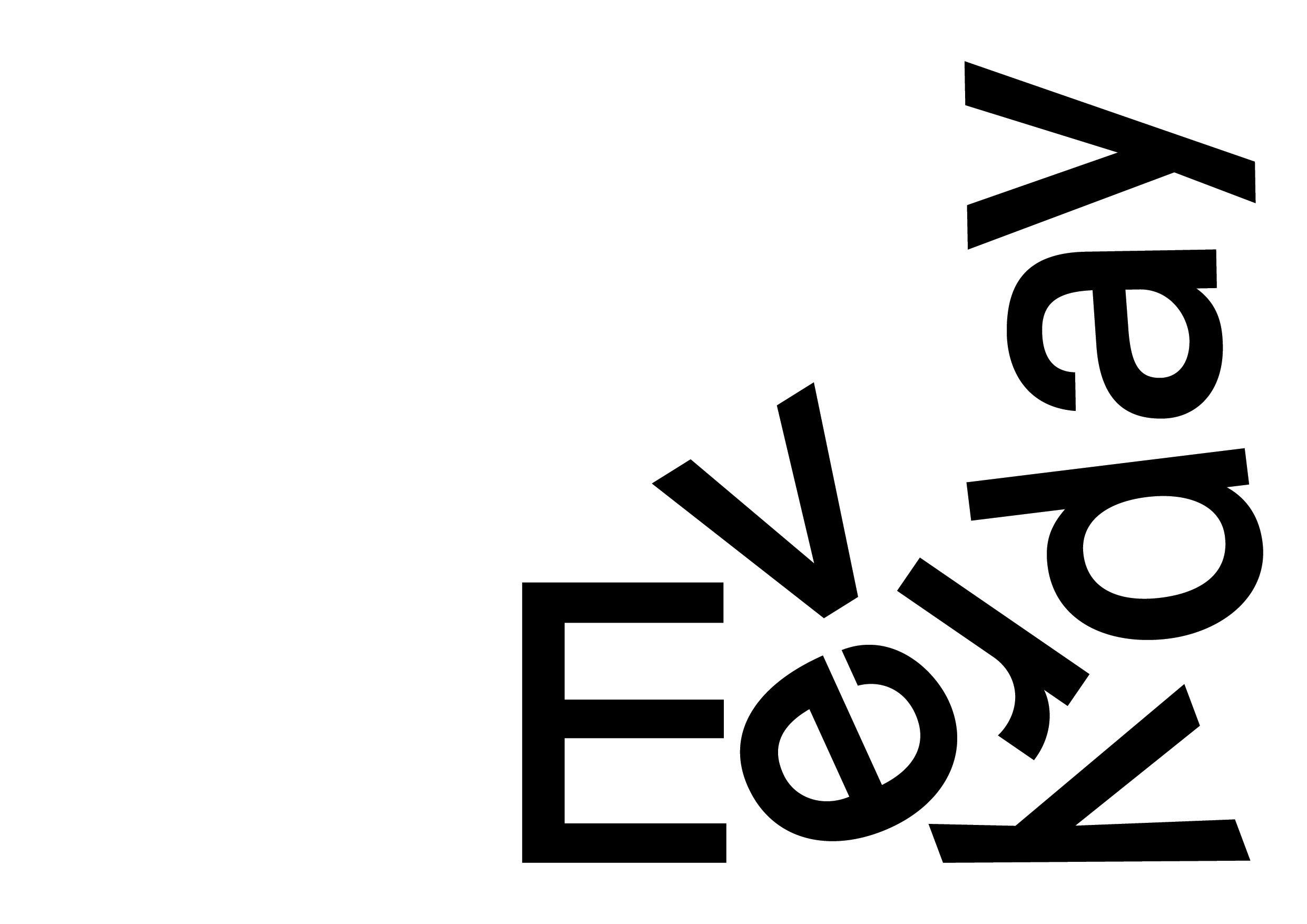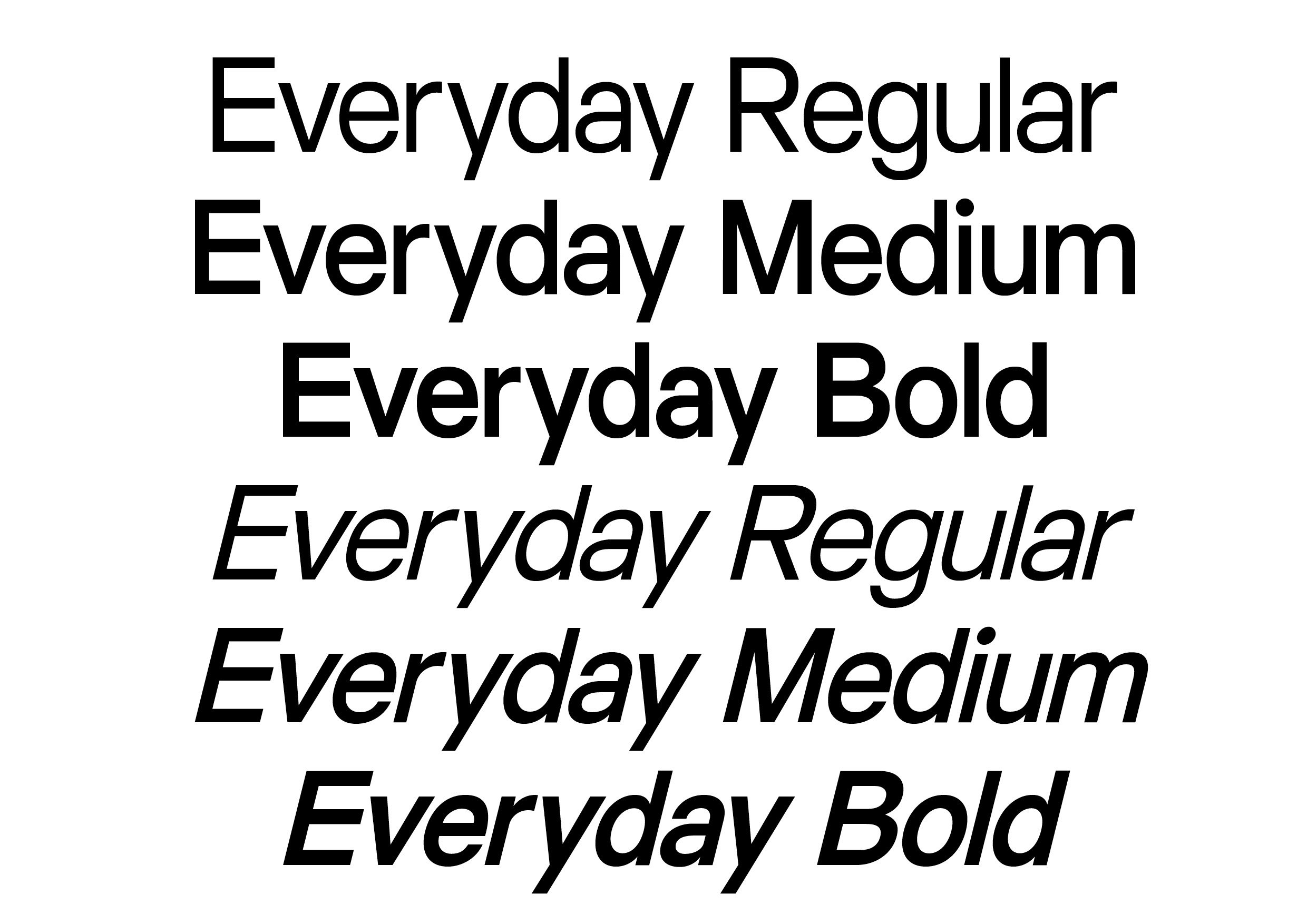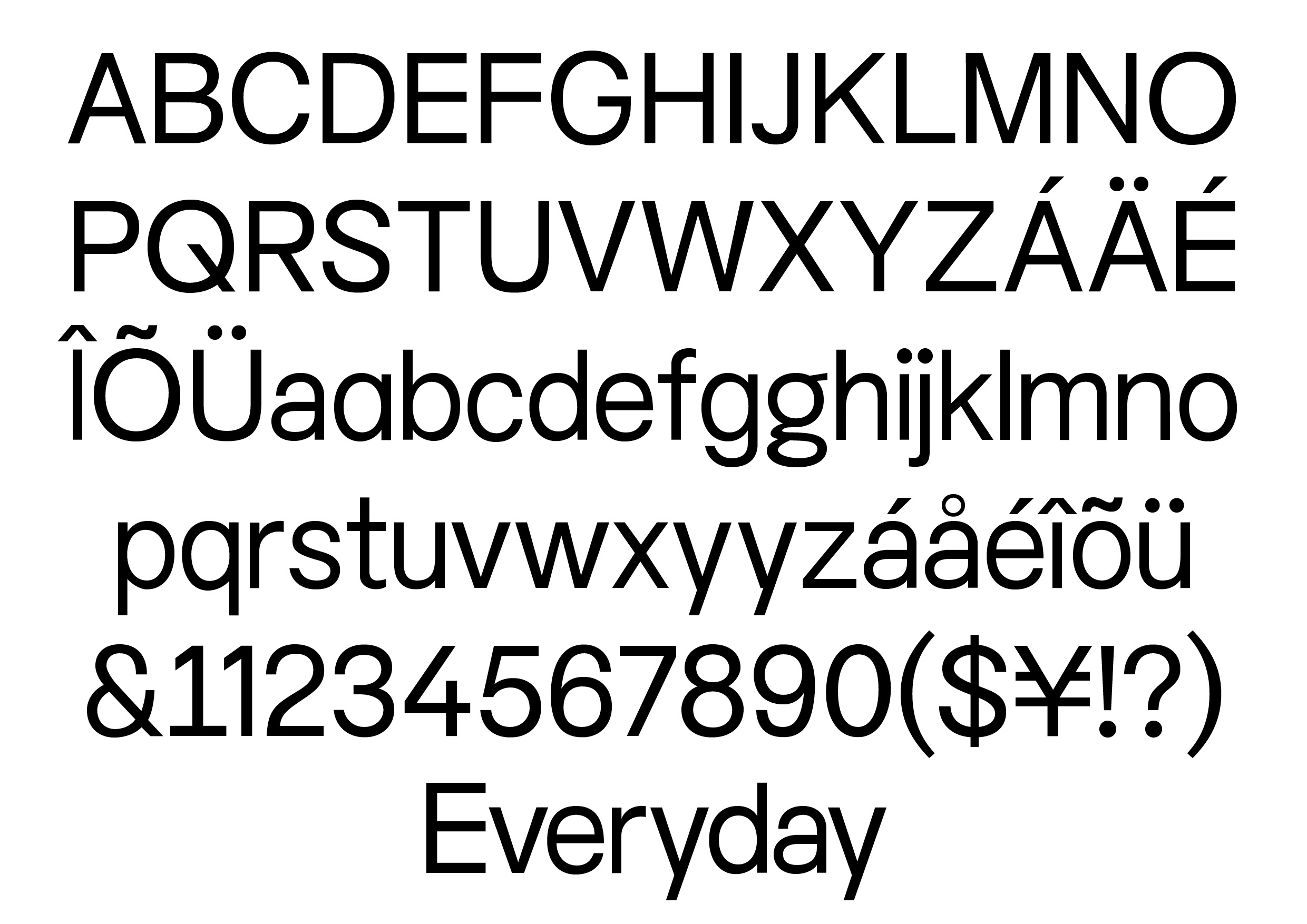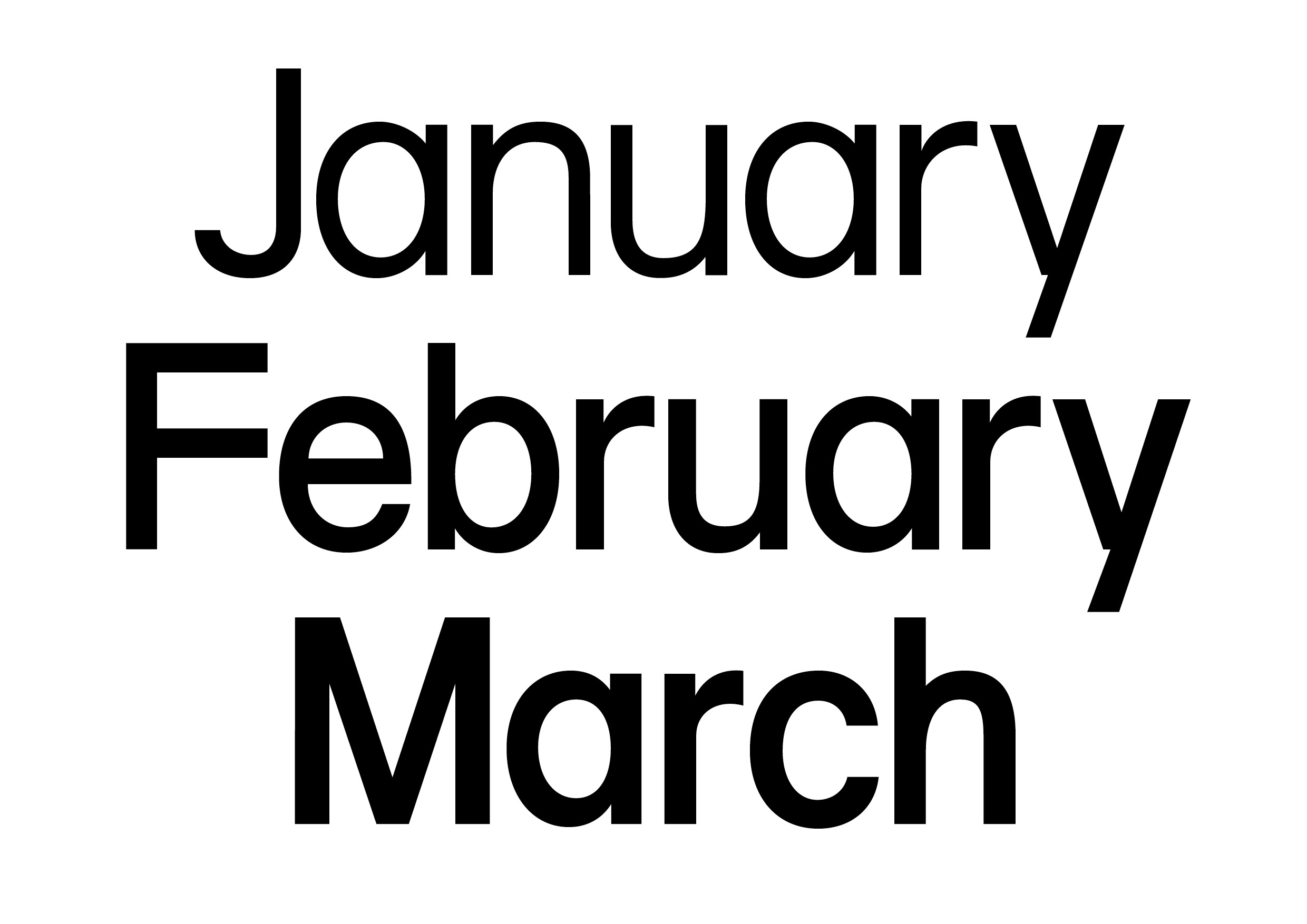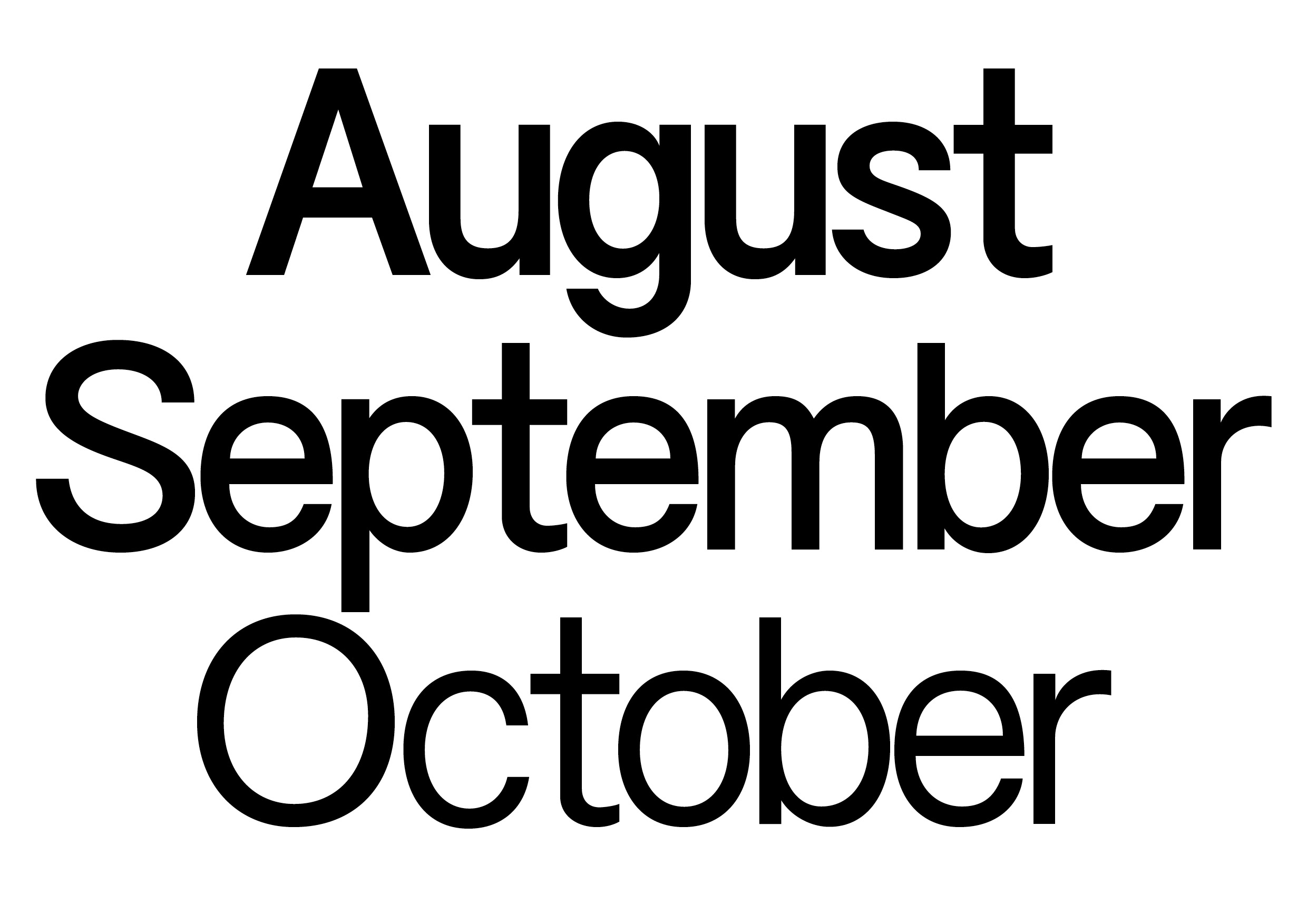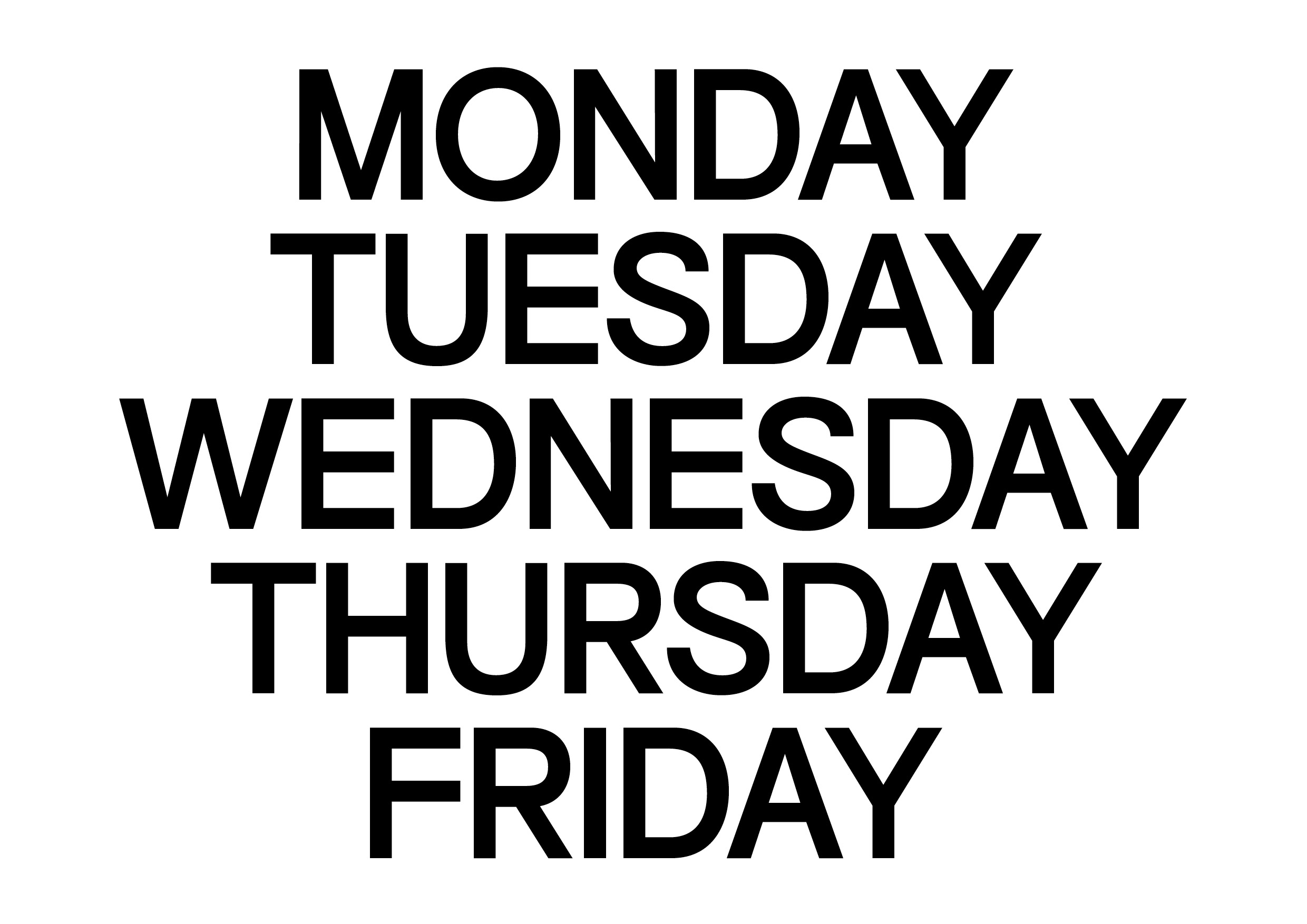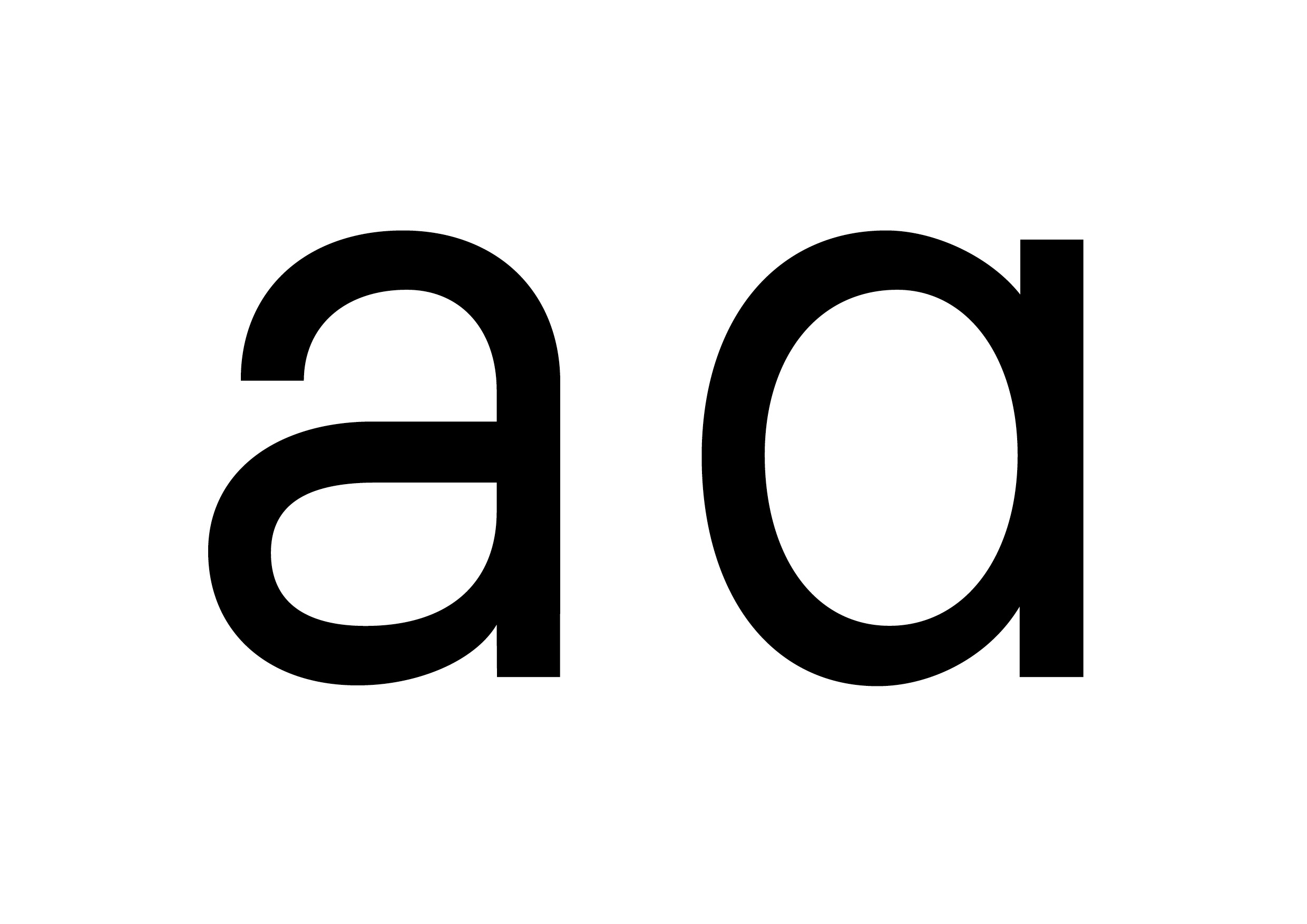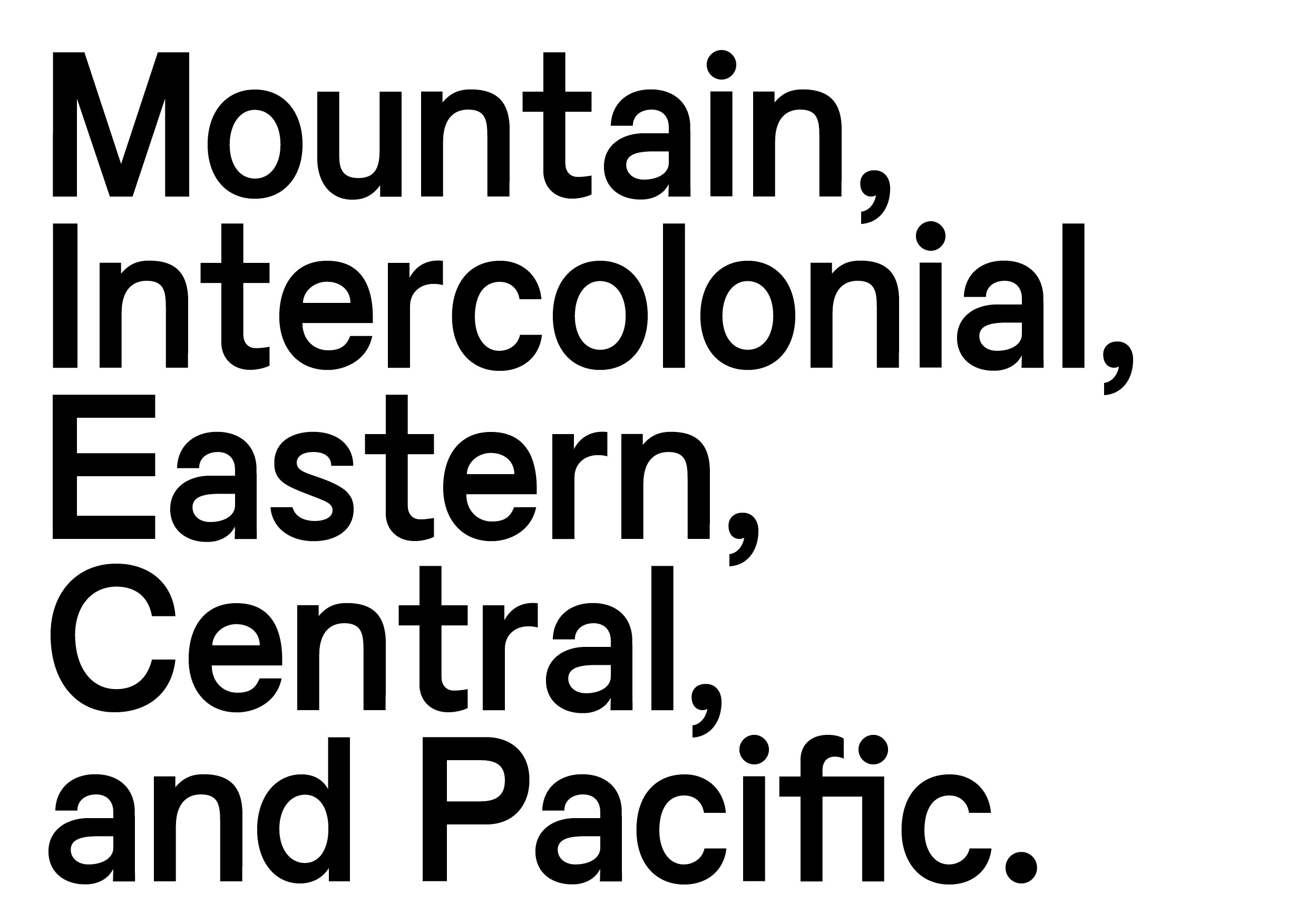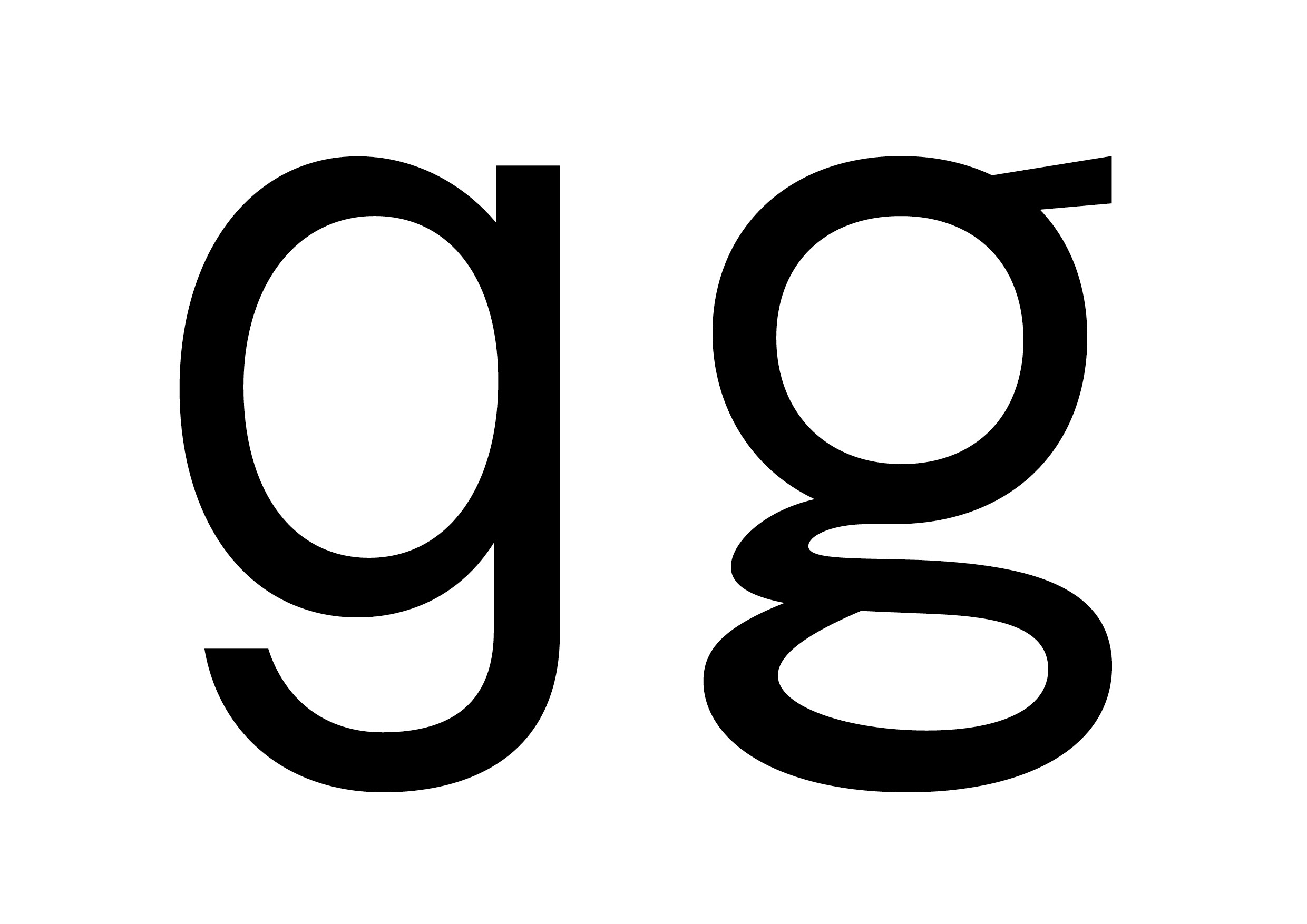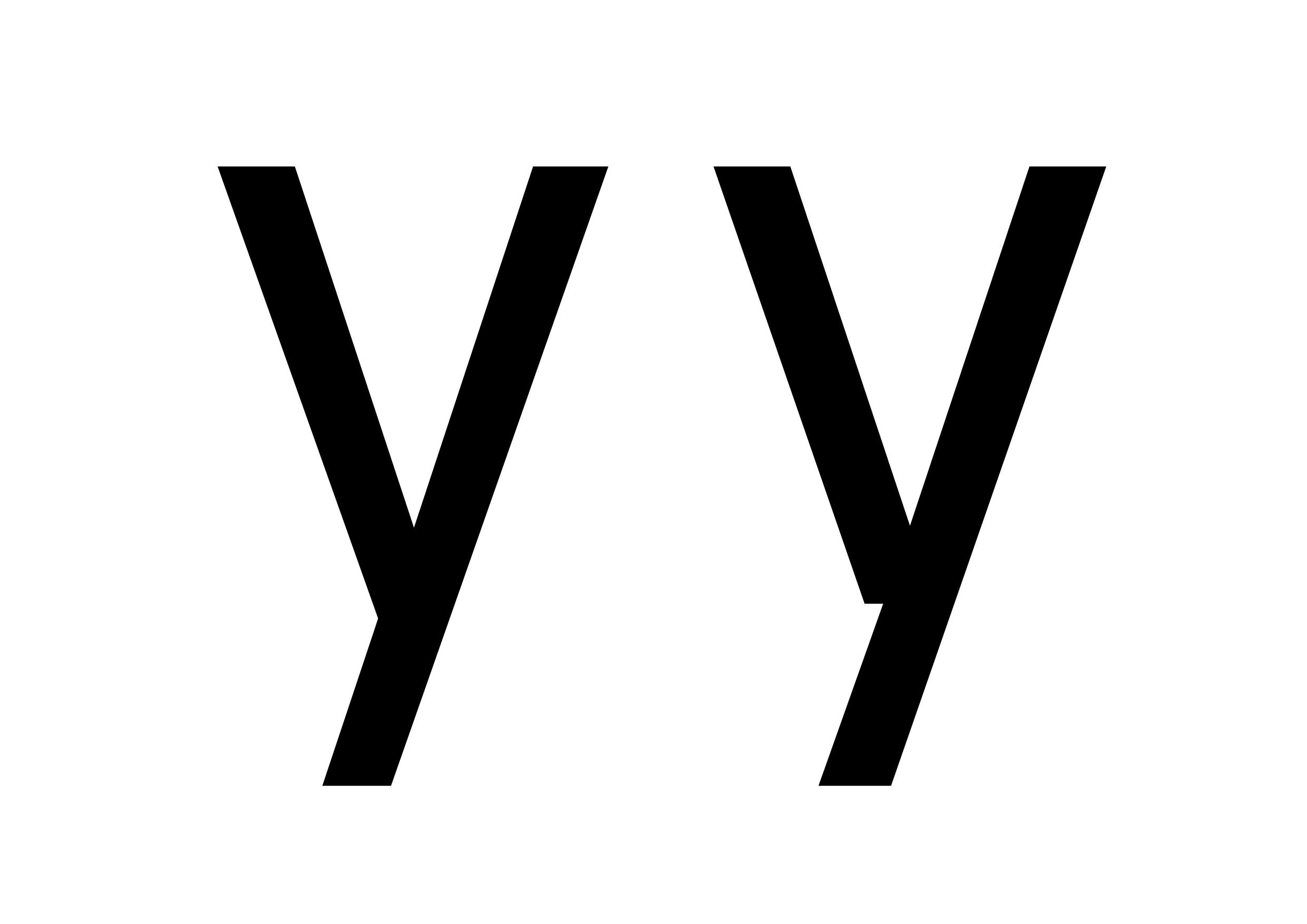
Everyday Sans
Everyday Sans is a typeface distilled from the study of 20 different fonts, created to capture a universal simplicity that works anywhere. By distilling their details, it finds the perfect balance of familiarity and charm, capturing the essence of everyday beauty. More than ordinary, Everyday Sans reveals the magic in the super-normal and celebrates the small joys that make daily life extraordinary. Its playful strokes carry warmth, while its refined forms bring elegance and clarity.
With an elevated x-height and versatile proportions, Everyday Sans adapts seamlessly across projects, from editorial design to branding and beyond. Since its release, it has become a beloved companion and favorite for designers worldwide, transforming the familiar into something fresh and elevating daily life with both charm and distinction.
Sans Serif
4 weights